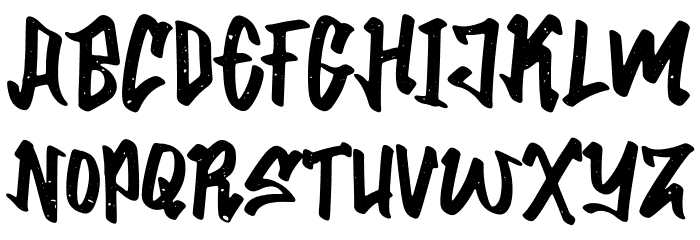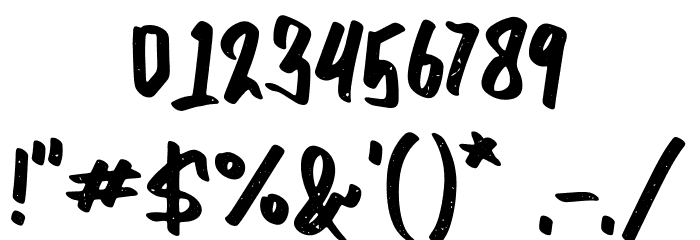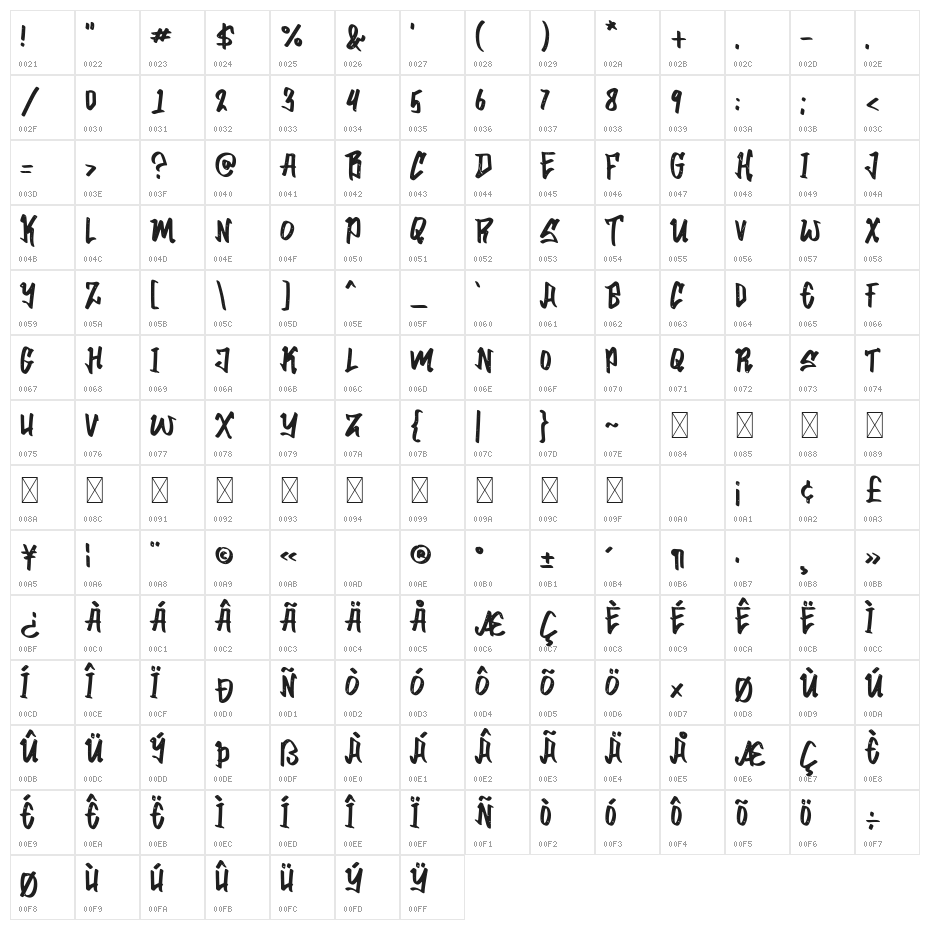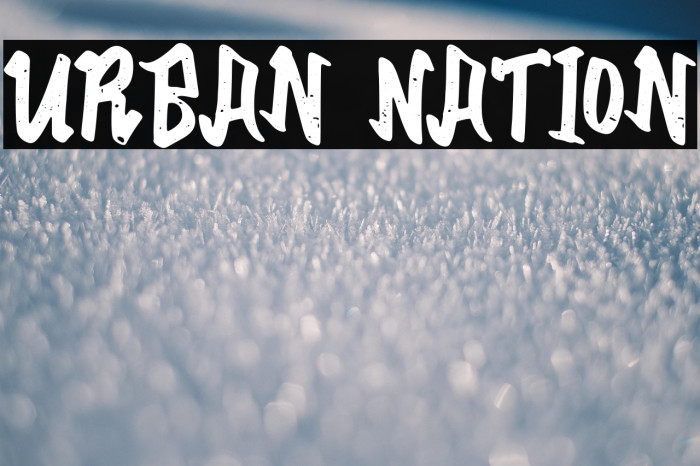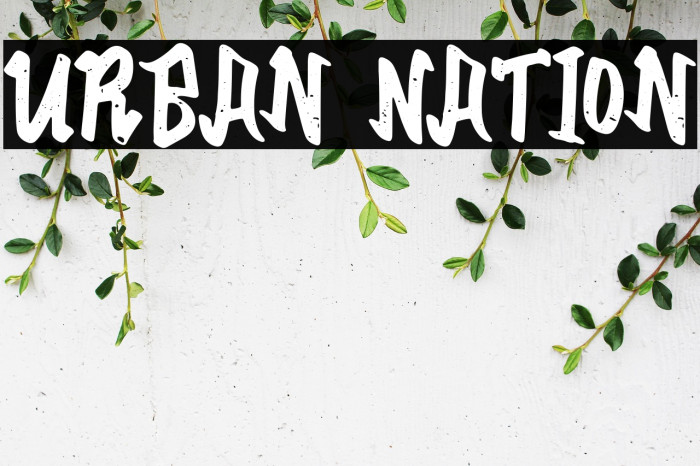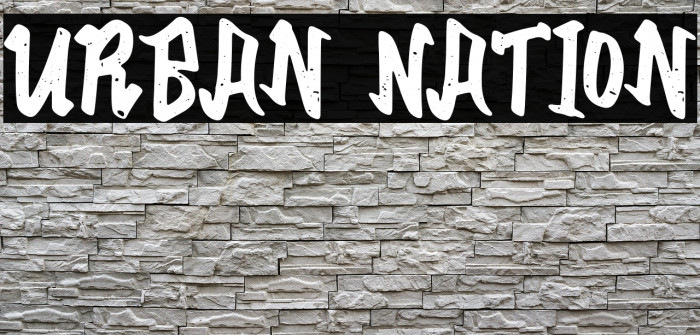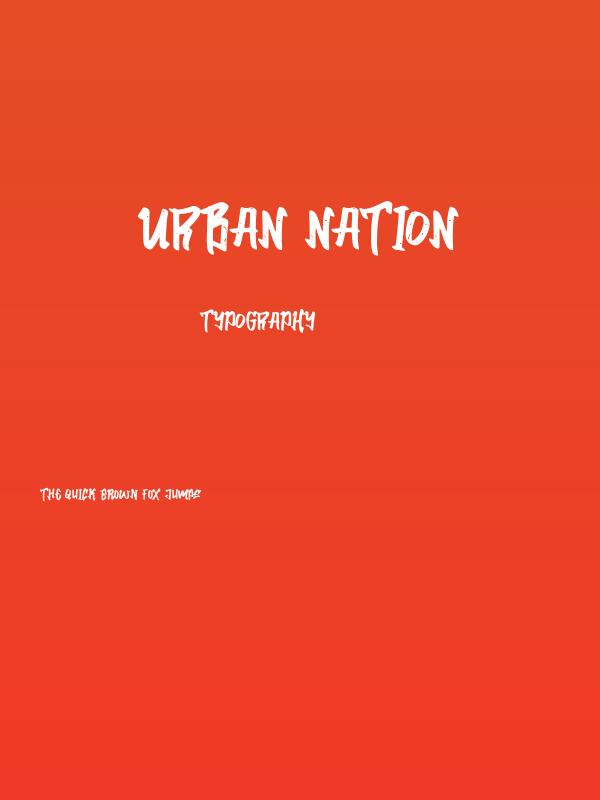
Urban Nation Font
This font exudes a bold and dynamic urban aesthetic, characterized by its thick, brush-like strokes and slightly irregular edges that give it a hand-drawn feel. The uppercase and lowercase letters maintain a consistent style, with a slight slant that adds to its energetic and informal appearance. The numbers and special characters follow the same design principles, ensuring a cohesive look across all glyphs. This font is perfect for projects that require a touch of street art or graffiti-inspired flair, making it ideal for posters, album covers, and branding that aims to capture a youthful and rebellious spirit.
A bold, brush-style font with an urban, graffiti-inspired aesthetic.
- Proposed Projects: Ideal for street art-themed designs, music album covers, urban branding, and edgy posters.
- Overall Style: Urban, Graffiti, Energetic